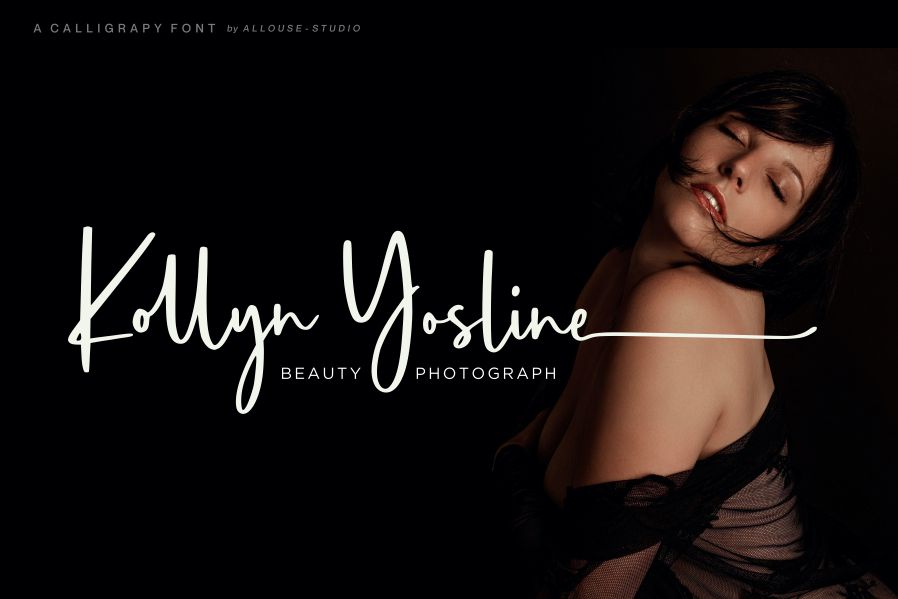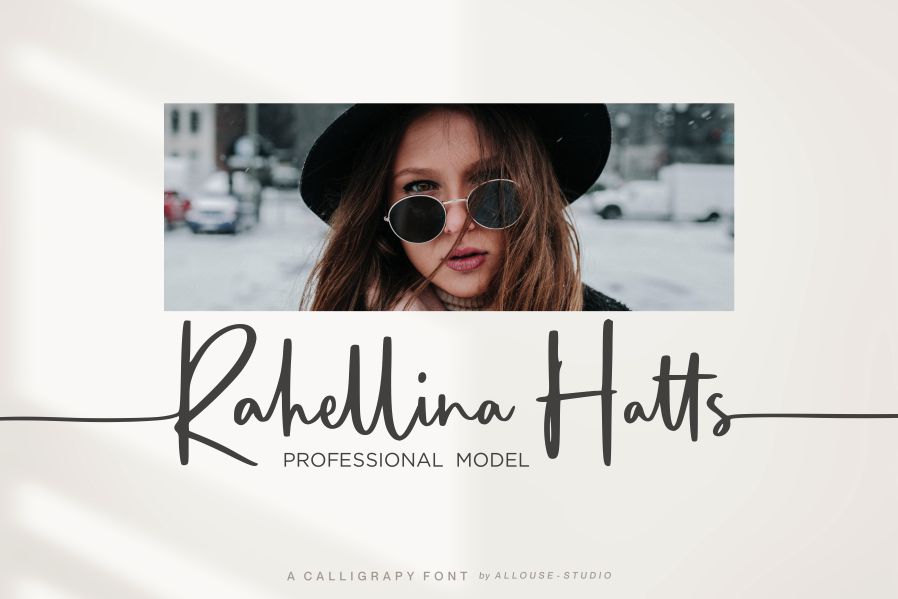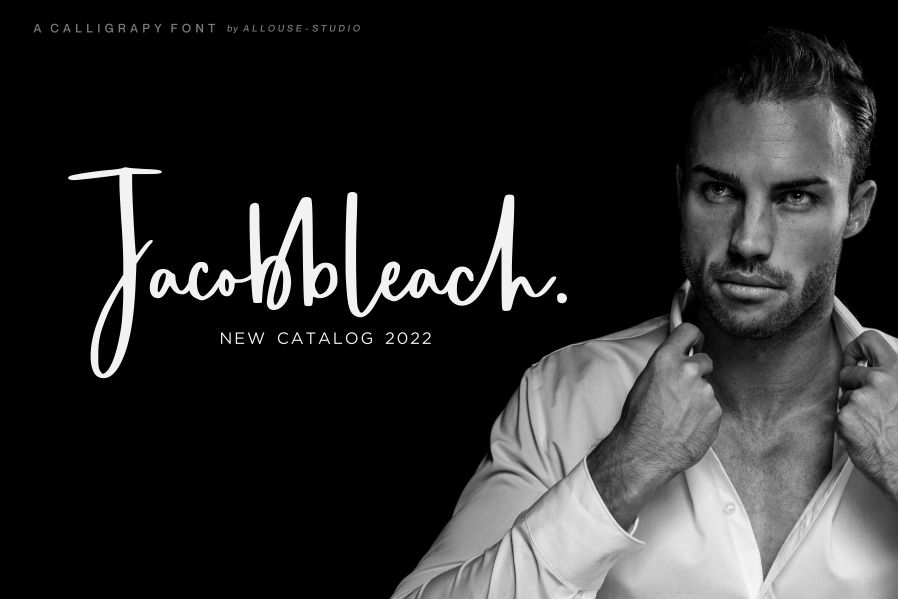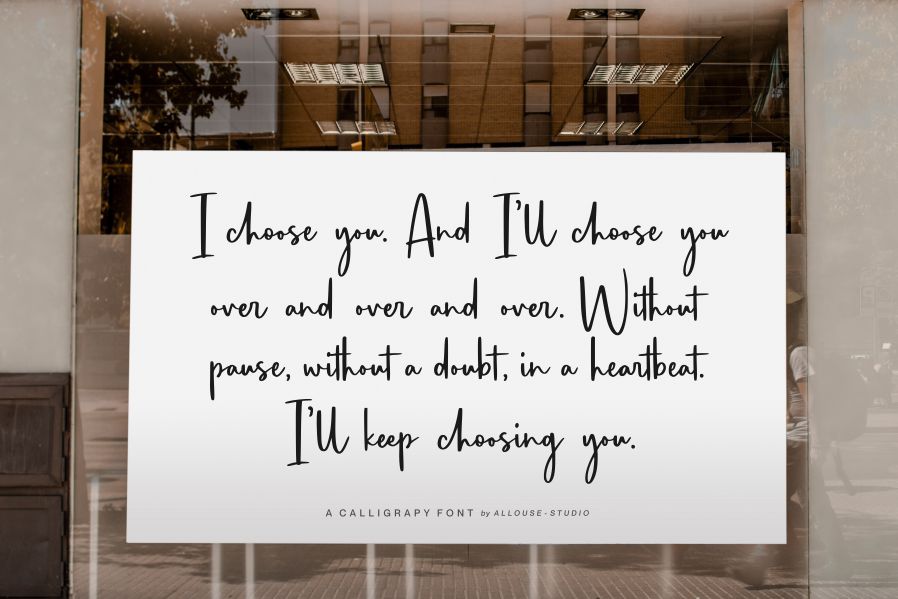
Blackmindlify Font
Blackmindlify Handwritten Font
Blackmindlify Font is a beautiful handwritten font perfect for product packaging, branding projects, magazines, social media posts, weddings, or just used to express words above the background. This font is PUA encoded, which means you can access all of the glyphs and swashes with ease!